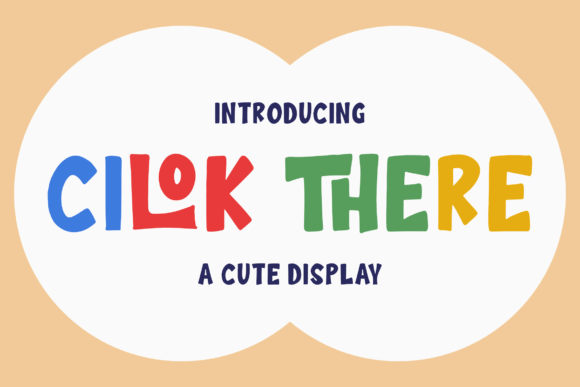
Prepare yourself to fall head over heels in love with Cilok There, the breathtaking new display font from the ingenious minds at Perspectype Studio. This masterpiece is meticulously designed to ignite a spark of enchantment with its adorable and vibrant charm.
Whether you're embarking on a new logo, injecting life into your branding projects, adorning homeware designs, or elevating product packaging, Cilok There gracefully adapts to your creative vision. This versatile font adds an irresistible touch of whimsy to mugs, quotes, posters, and shopping bags. Its magical aura transforms T-shirts into wearable art, book covers into captivating portals, and name cards into enchanting self-expressions.
Cilok There is your perfect partner for invitations that exude elegance, greeting cards that radiate warmth, and labels that demand attention. It effortlessly enhances photography with a personal touch, adds a unique flair to watermarks, and infuses special events with an unforgettable charm.
This font is more than just a collection of letters; it's a gateway to a world of creative possibilities. With Cilok There, your projects will blossom with a unique personality, capturing hearts and leaving a lasting impression. Its playful spirit and captivating beauty will make your designs shine brighter than the stars.
So, dive into the world of Cilok There and let your imagination run wild. Create designs that radiate joy, spread love, and leave an indelible mark on the world. With this font as your creative companion, the possibilities are endless.